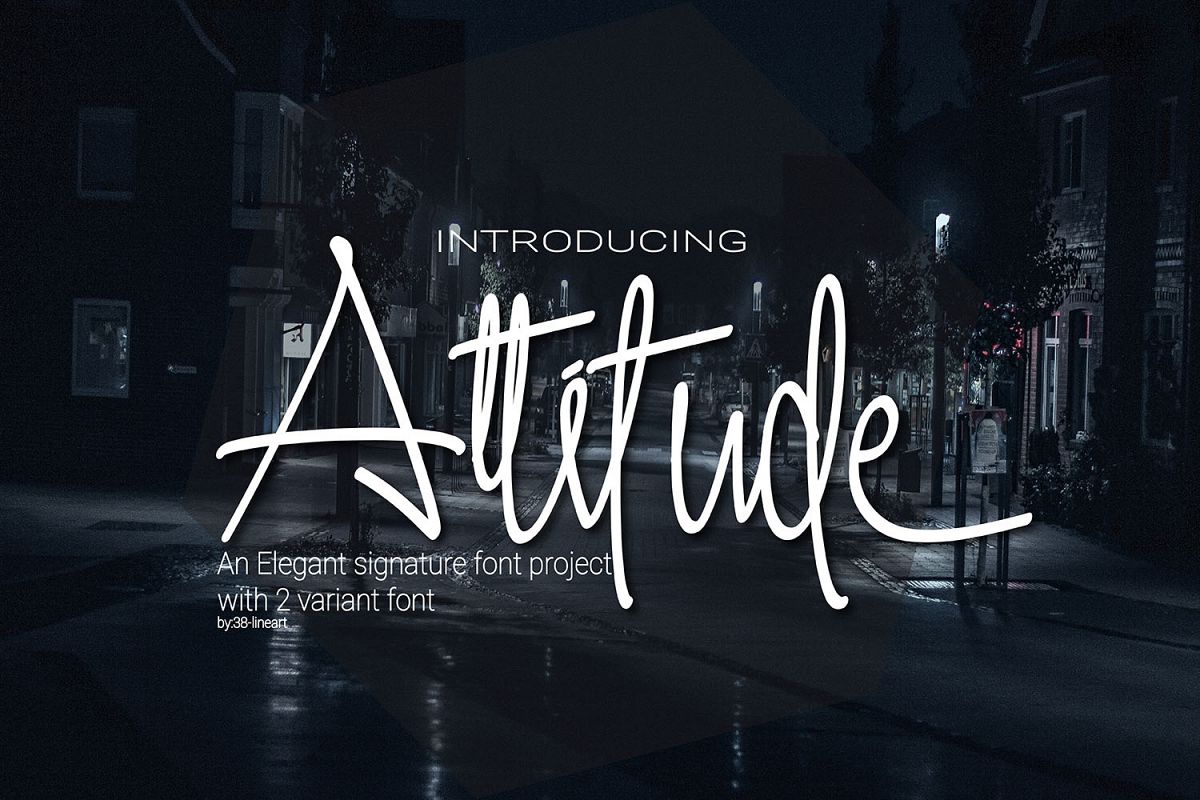
Attitude
Attitude is an elegant script font, perfect for giving your designs a handwritten feel. This signature font is flexible and looks at home in modern and hipster designs, but can add some class to invitationals and print publications.